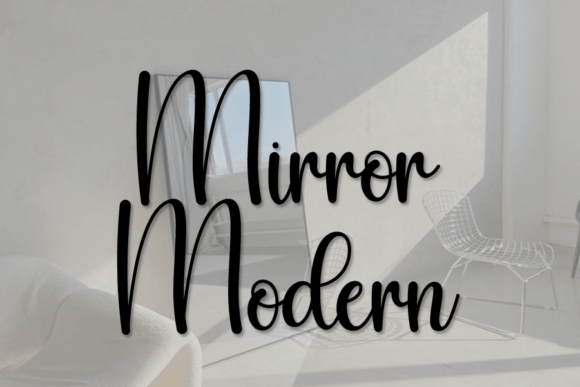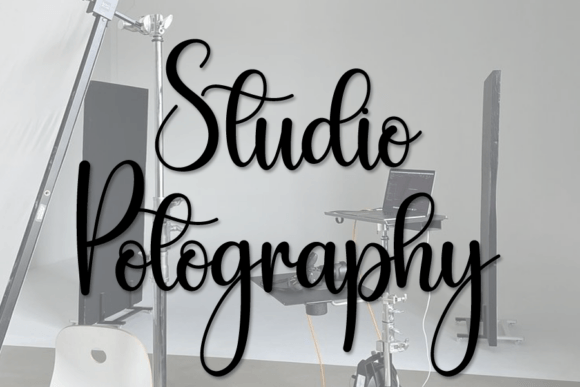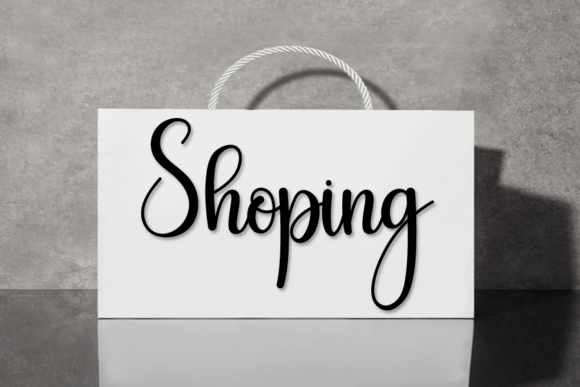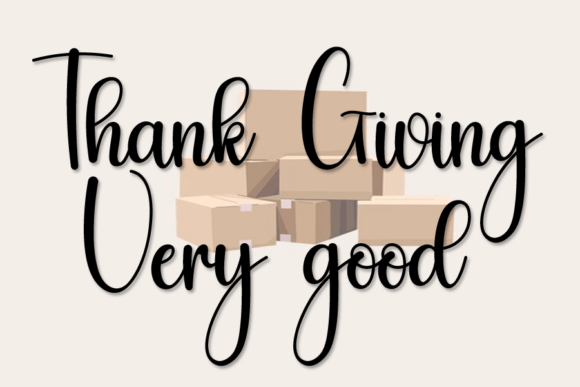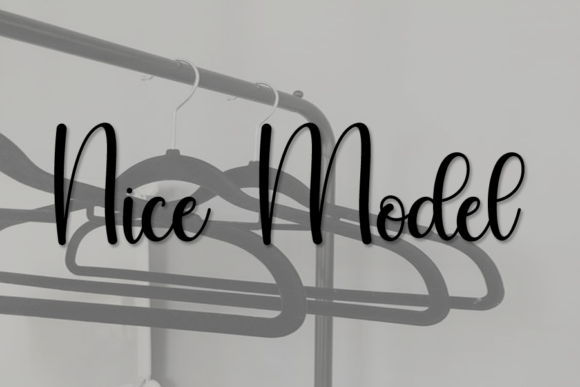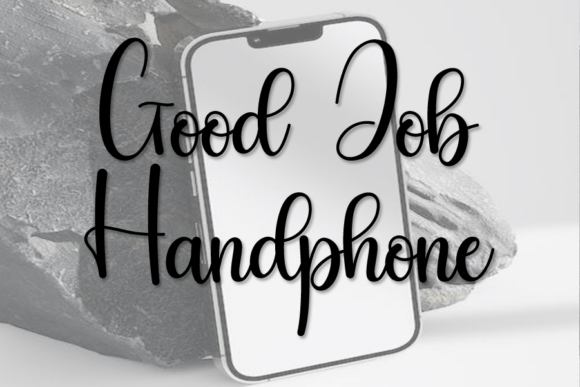
Introduction to Simple Designer Font
As a designer, have you ever found yourself staring at a blank canvas, desperately searching for the perfect font to bring your creative vision to life? The thrill of the hunt is exhilarating, but it can also be overwhelming. That’s why discovering the Simple Designer Font can be a game-changer. This high-quality, free download is a game-changer for designers looking to add a touch of elegance and sophistication to their projects.
With its unique, handwritten script, the Simple Designer Font is perfect for logotype, headline fonts, and corporate identities. Its transparent background makes it easy to layer and combine with other design elements, giving you endless possibilities for creative expression. Whether you’re working on a magazine, book, comic, or YouTube video, this versatile font is sure to elevate your design to the next level.
Key Features of Simple Designer Font
- High-quality, elegant design perfect for creative projects and design resources.
- Transparent background allows for easy layering and customization in design applications.
- Designed with a minimalist aesthetic, ideal for use in modern branding, logos, and typography-based designs.
- Resolution-independent, ensuring crisp and clear display on high-resolution screens and print materials.
Honest Review: Simple Designer Font
I recently stumbled upon the Simple Designer Font and was excited to give it a try. As a designer, I’m always on the lookout for high quality design resources that can elevate my creative projects.
Here are some things that work well with this font: ✨ It’s clean and minimalist, making it perfect for modern design projects. ✨ It’s highly legible, even at small font sizes. ✨ It’s also very versatile and can be used in a variety of creative contexts.
However, I did encounter a few limitations: ⚠️ The font may not be suitable for complex, multi-line text. ⚠️ It’s not as customizable as some other fonts on the market.
Overall, I’m impressed with the Simple Designer Font and would definitely recommend it to fellow designers. It’s a solid design resource that can add a touch of elegance to any creative project.
- Pros: clean design, high legibility, versatile
- Cons: may not be suitable for complex text, limited customization options
For optimal results, use the Simple Designer Font in conjunction with other high-quality design elements. Experiment with different font sizes, colors, and combinations to find the perfect look for your project.
The Simple Designer Font is ideal for a variety of creative projects, including:
- Presentation slides
Alternatives to Simple Designer Font
Open Sans is a high-quality, free download font perfect for creative projects that require a clean and modern look. Its transparent background makes it ideal for designs where the text is the focal point. Open Sans is a great alternative to Simple Designer Font when you need a font with a more sophisticated feel.
Comparison: Open Sans has a more elegant and refined look compared to Simple Designer Font, making it a better choice for formal designs or corporate projects.
Lato is a free download font that offers a high-quality design resource for creative projects. Its simple yet elegant design makes it perfect for use in logos, headings, and body text. Lato is a great alternative to Simple Designer Font when you need a font with a more neutral and versatile look.
Comparison: Lato has a more subtle and understated look compared to Simple Designer Font, making it a better choice for designs where you want to avoid drawing attention away from the content.